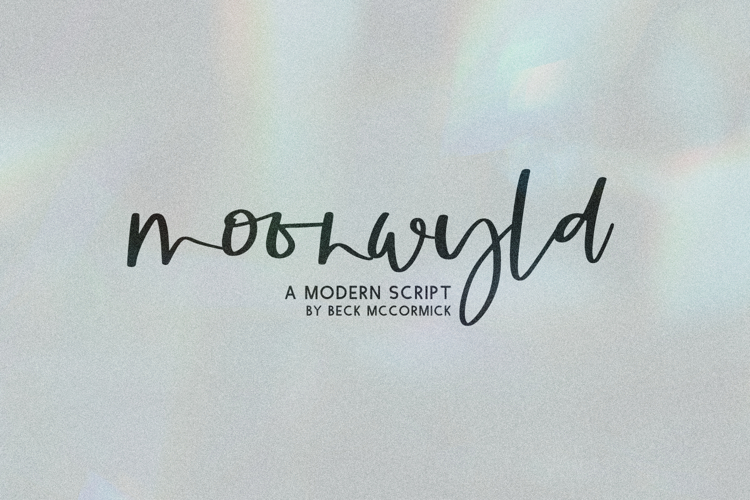
Moonwyld Script
Introducing Moonwyld, a cute handlettered modern calligraphy script. Moonwyld features 16 ligatures, further enhancing the handwritten look like natural handwriting!
- 16 ligatures - bb, cc, dd, ee, ff, gg, ii, kk, ll, mm, nn, oo, pp, rr, ss, tt